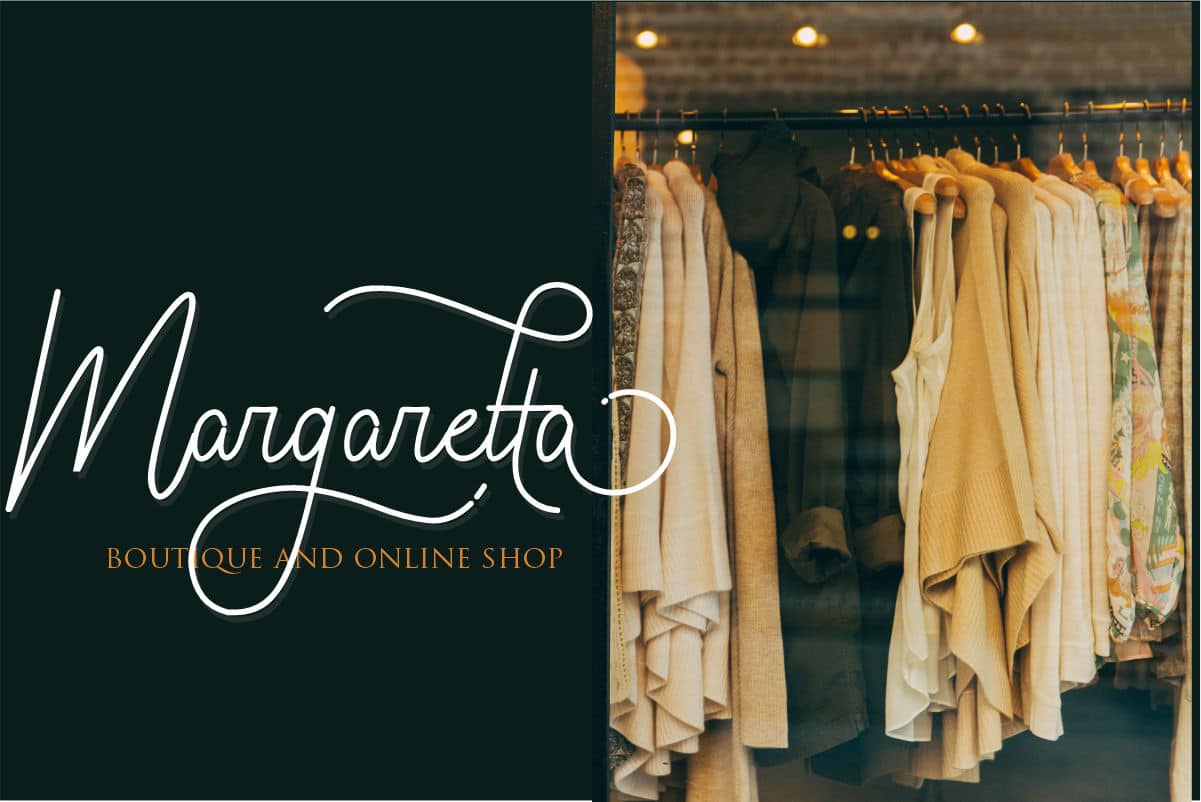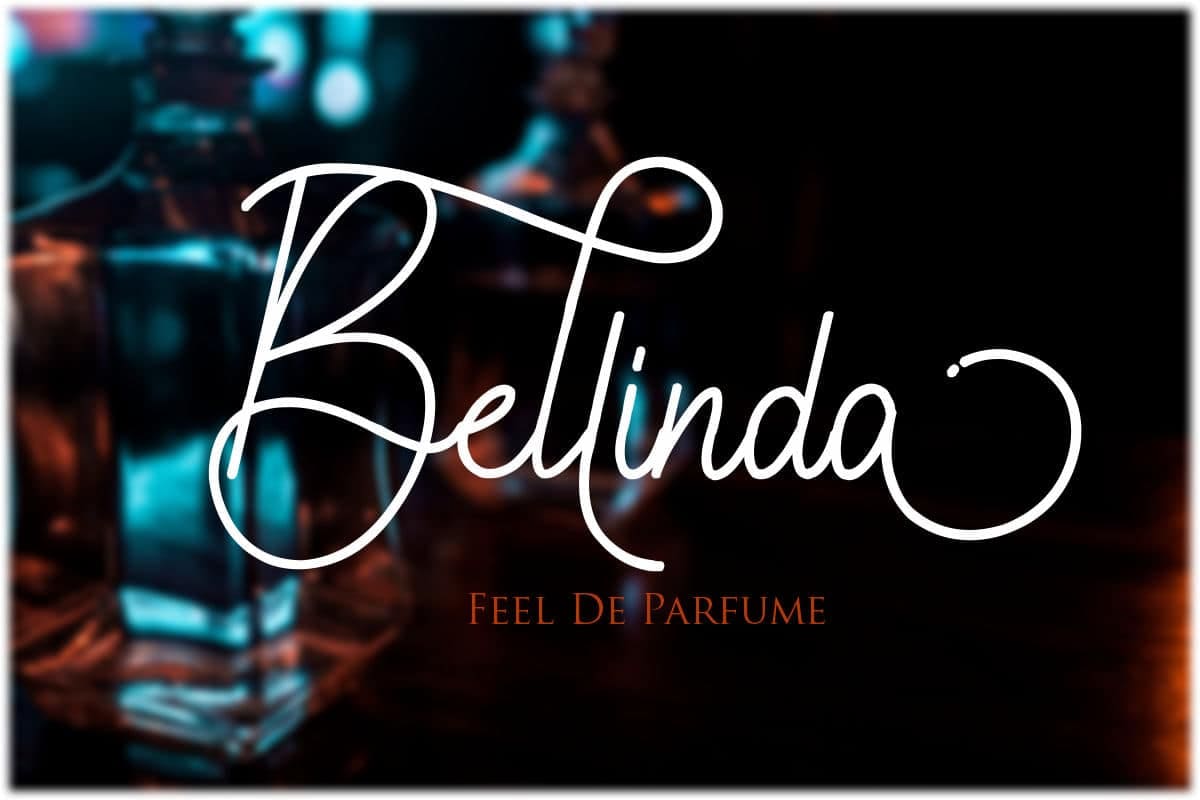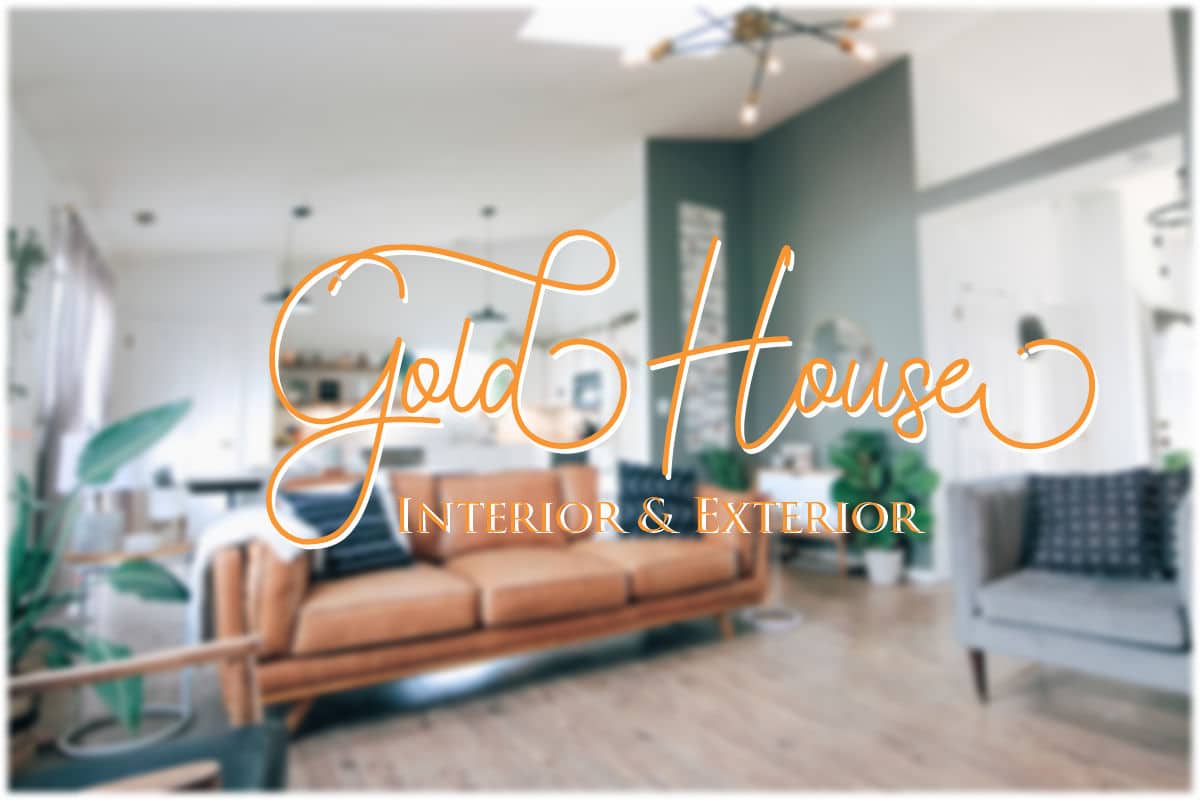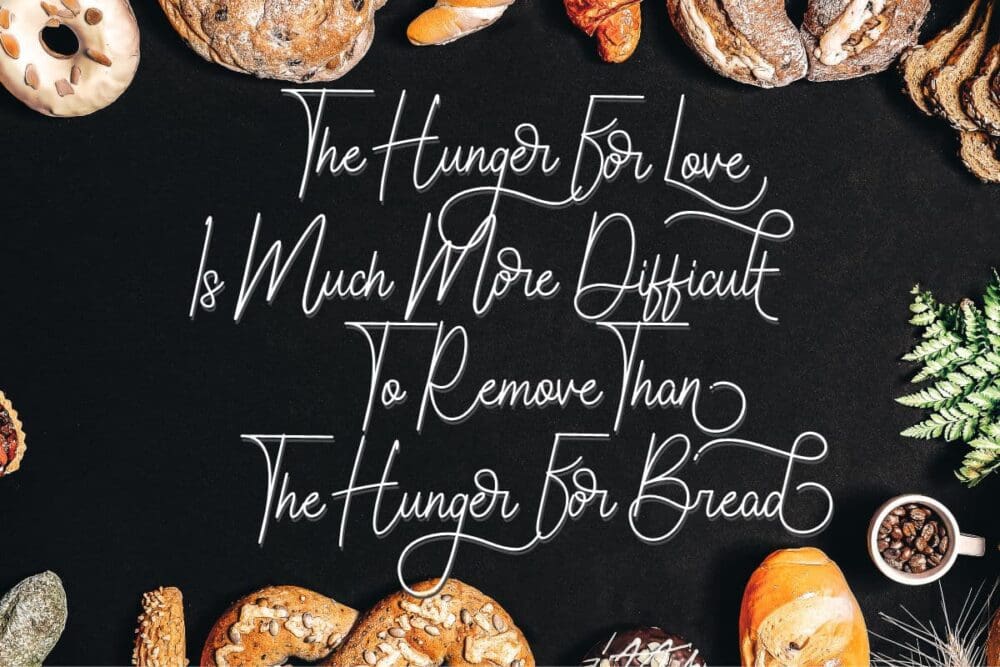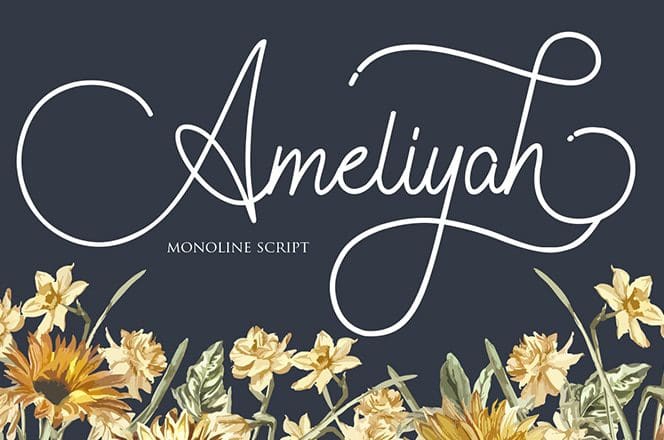
Ameliyah Monoline Script Font
Ameliyah Monoline Script Font is a unique, cute, and Sweety Stylistic Calligraphy. This font is suitable for you who needs a typeface for headline, logotype, apparel, invitation, branding, packaging, advertising, etc. Using Ameliyah definitely make your text stand out.